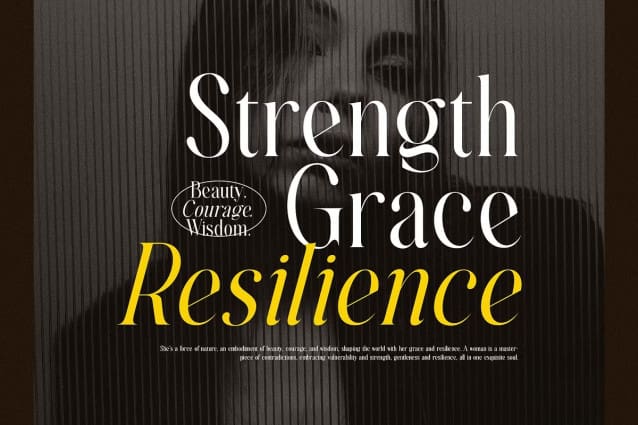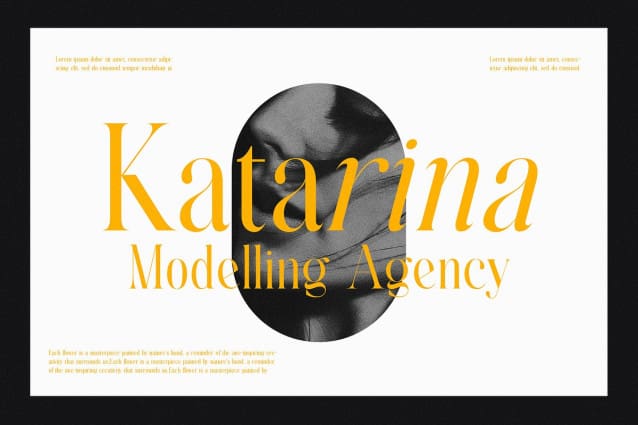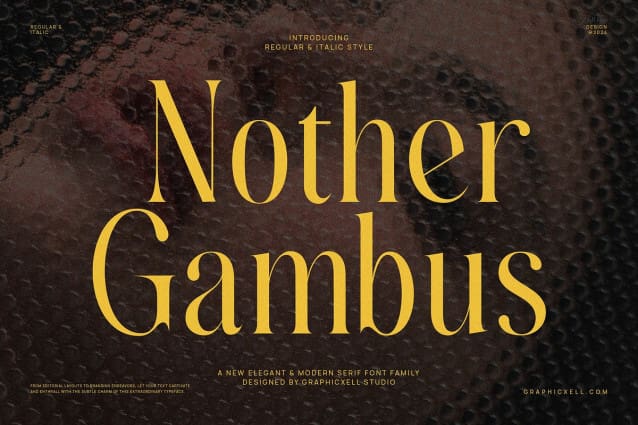
Nother Gambus Font
Nother Gambus Font it reflects bravery through the detail and boldness displayed in it. It is an elegant font serif that brings modern style to serif fonts. Like other modern serif fonts, Nother Gambus has significant contrast among the thick and thin strokes, a very thin hair-line serif, and vertical pressure. By considering those characteristics, Nother Gambus font is more expressive, so it can be used in almost every campaign.
Do you know the particular uniqueness of NotherGambus? If you look carefully, you will notice a reversed diagonal axis style. That uniqueness definitely represents enthusiasm and looks stylish as well. Just wow! Indeed, it is correctly used for logos, billboard advertising font, fashion labels, posters and modern editorials. Use this font to get more engagement from crowd of people.